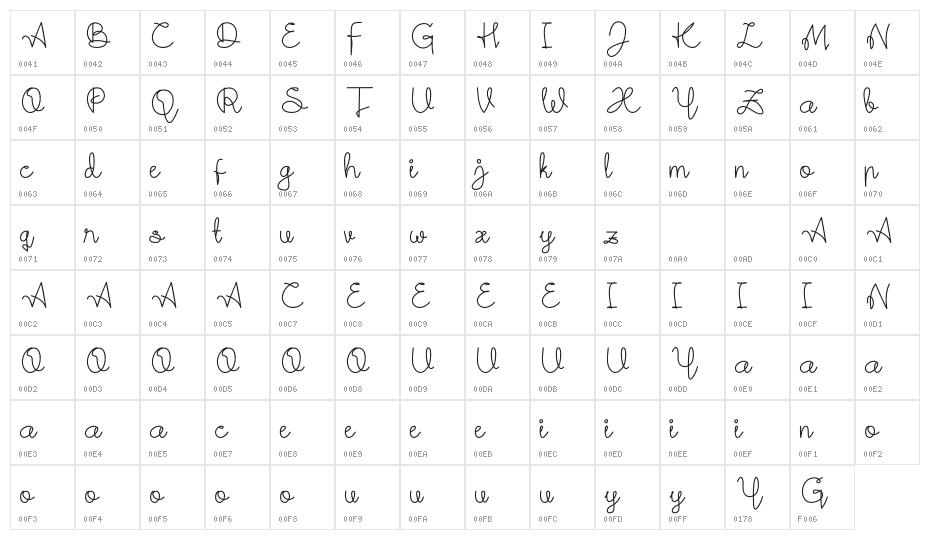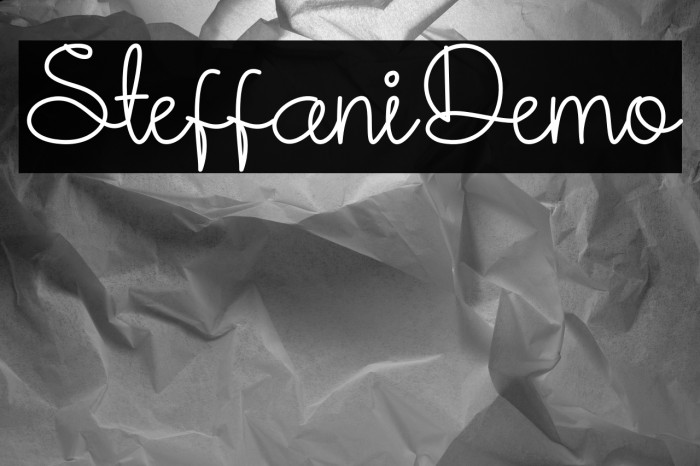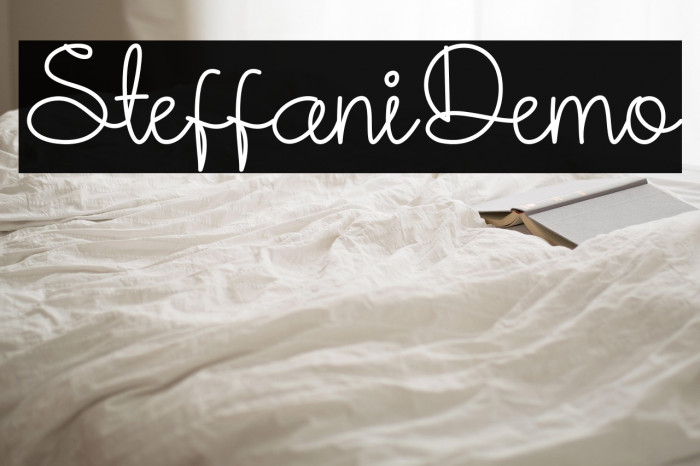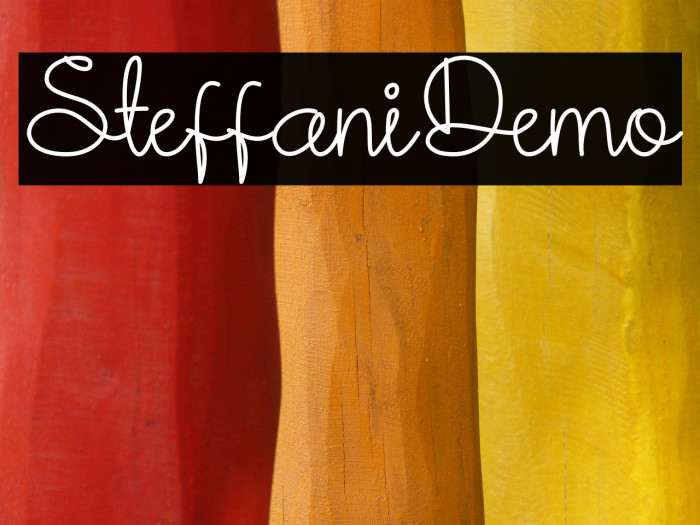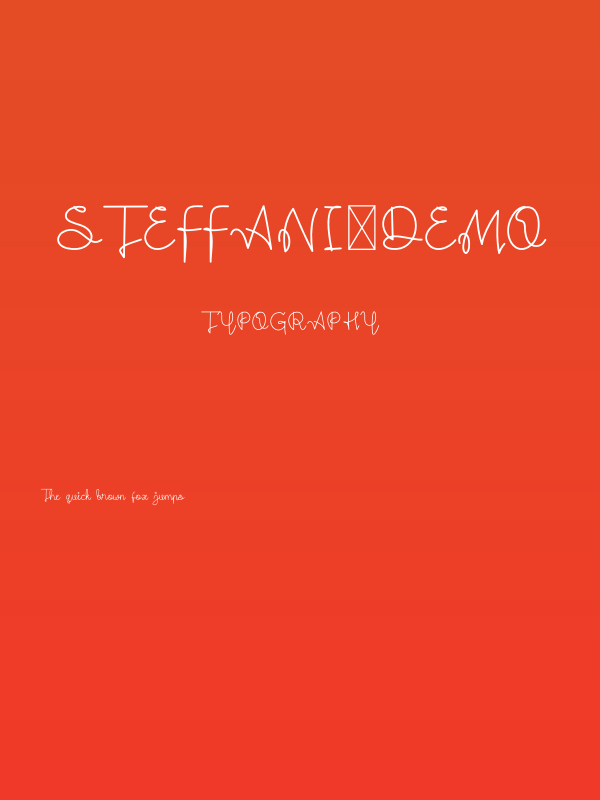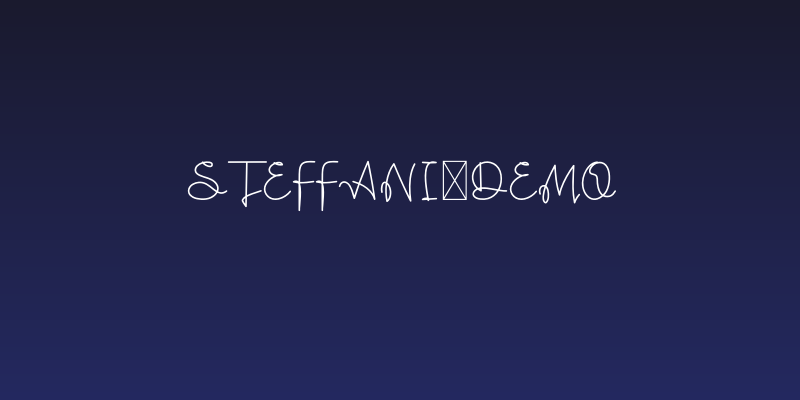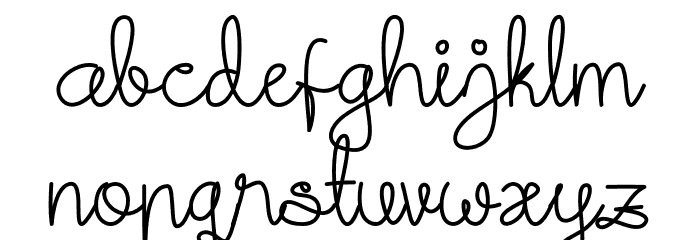
Steffani-Demo Font
Steffani-Demo Description
This font features a whimsical and playful script style, characterized by its flowing, interconnected letters. The uppercase letters have a unique, artistic flair with loops and curves that give them a hand-drawn appearance. The lowercase letters maintain a consistent style, with smooth, rounded forms and occasional decorative elements like loops and swirls. The overall design is casual and friendly, making it suitable for creative and informal applications. The font lacks traditional serifs, emphasizing its modern and relaxed aesthetic. It is ideal for projects that require a personal touch, such as invitations, greeting cards, or branding for creative businesses.
| Proposed Projects | Ideal for invitations, greeting cards, creative branding, and informal designs. |